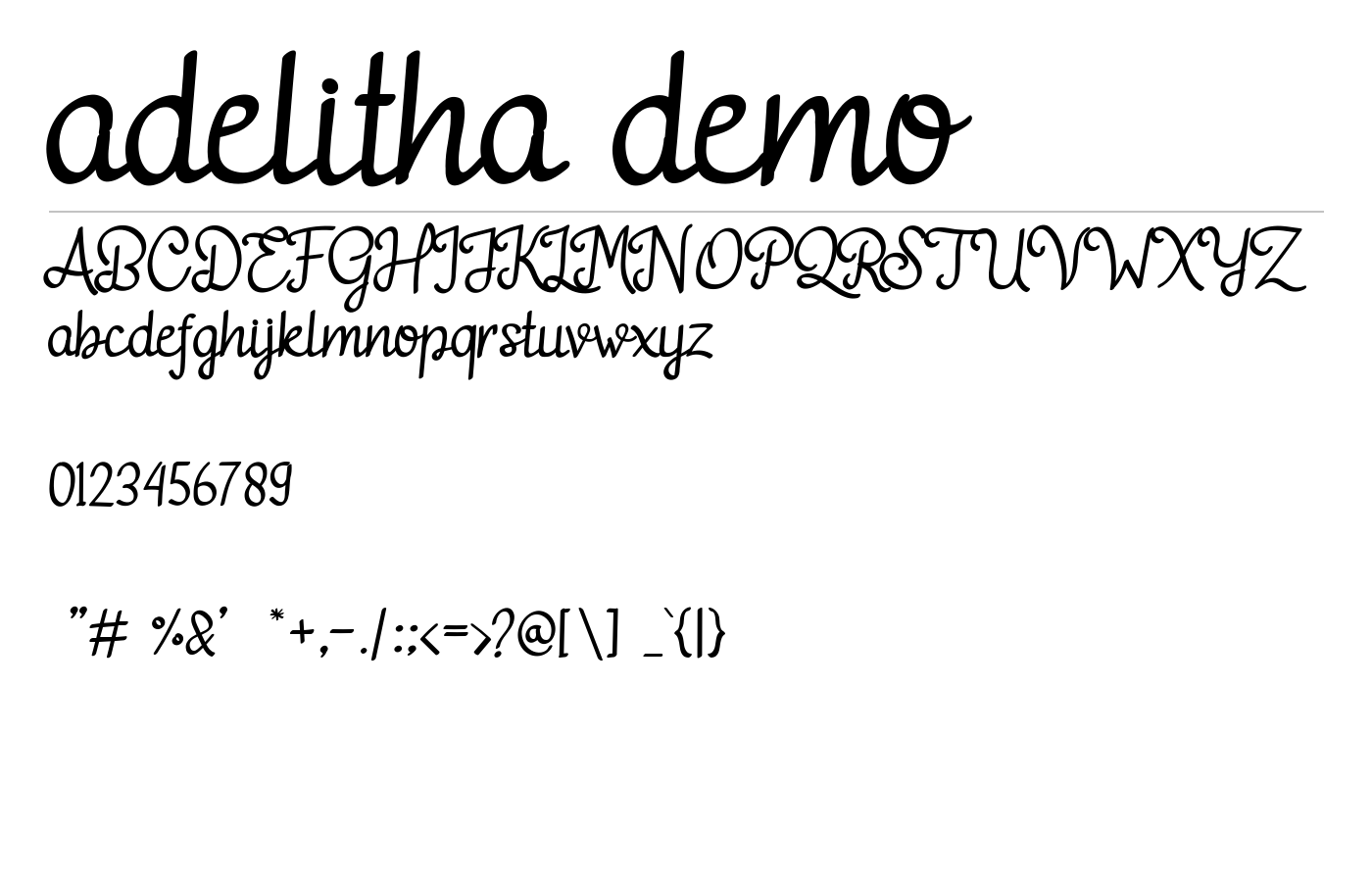
Adelitha Demo is a delicate, cursive script font characterized by its light weight and tall, narrow letterforms. Its flowing, slightly whimsical style with refined strokes makes it perfect for elegant yet approachable designs, ideal for invitations, branding, and creative projects that seek a personal, hand-crafted feel. The font's unique uppercase flourishes combined with simple, legible lowercase letters offer a stylish and charming tone without sacrificing readability.
adelitha demo Font
| Designer | jozgandoz |